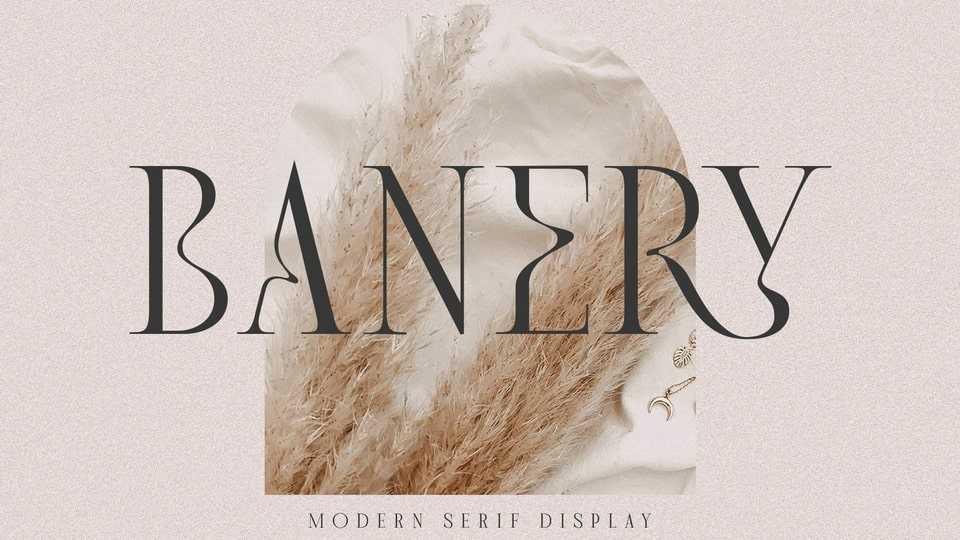
Download Banery font, a minimalist serif typeface in a modern style. Banery is made with geometric shapes and high contrast of strokes, also accompanied by alternates characters with unique shapes, and full of beautiful twists which give a pretty, elegant, and exclusive impression.